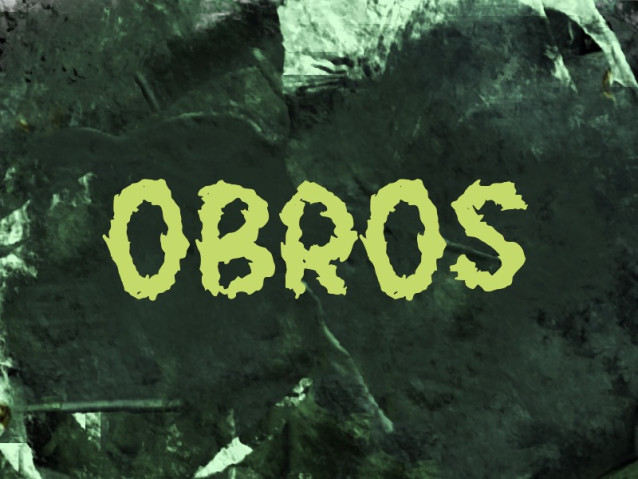
Obros Font
Obros Font a display font characterized by its organic, irregular contours and rugged aesthetic. The letterforms evoke a sense of raw power and rebellious spirit, making it an ideal choice for graphic designers looking for a high-impact, textured look. Best suited for large-scale titles, logotypes, and merchandise design.